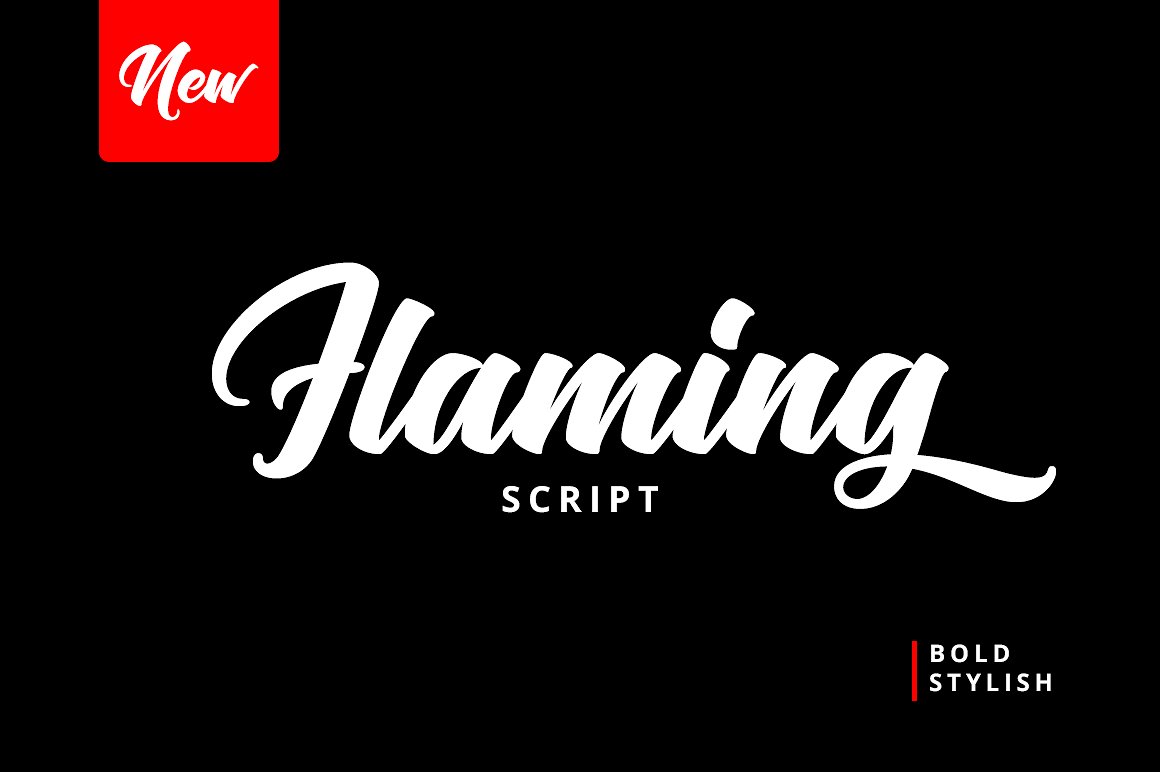
Flaming Script Font
Hello! Flaming is a bold and stylish script font. Can be used for your various design projects such as posters, magazine covers, t-shirt designs, flyers, logotype and much more.